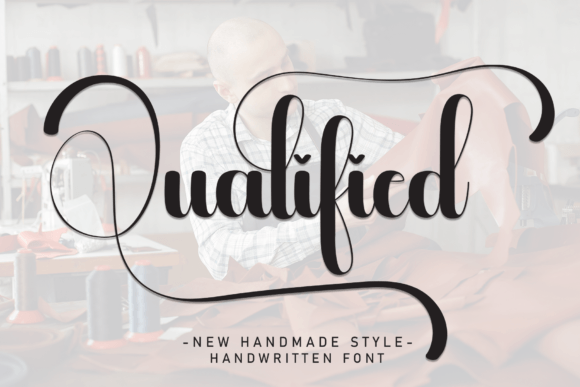
Introducing Qualified Font: The Epitome of Elegance and Charm
Enter the realm of elegance with Qualified Font, a breathtaking creation from the visionary mind of William Jhody. A script font that exudes warmth and sophistication, Qualified is more than just a collection of letters; it's an artistic masterpiece that will elevate your designs to new heights.
This exquisite font family, crafted with meticulous attention to detail, dances across the page with grace and fluidity. Each character is a tiny work of art, adorned with delicate swashes and flourishes that add a touch of whimsy and charm. Its inherent beauty shines brightest against dark backgrounds, where its white strokes evoke a sense of luminosity and vibrancy that commands attention.
Qualified is an ideal choice for those who seek to create designs that resonate with elegance and charm. Its versatility extends from personal projects like wedding invitations and greeting cards to professional endeavors such as branding, marketing materials, and website designs. Whether you're a seasoned designer or just starting out, Qualified is the perfect font to add a touch of magic to your creative endeavors.
Experience the allure of Qualified Font and embark on a journey of artistic expression. Its timeless beauty will leave a lasting impression on your audience, captivating their hearts and minds with its undeniable charm.